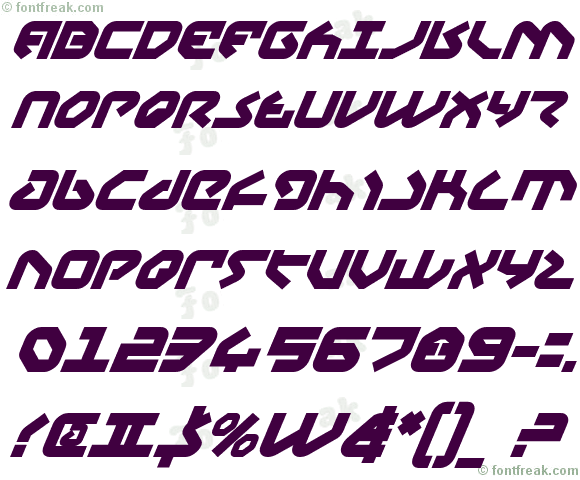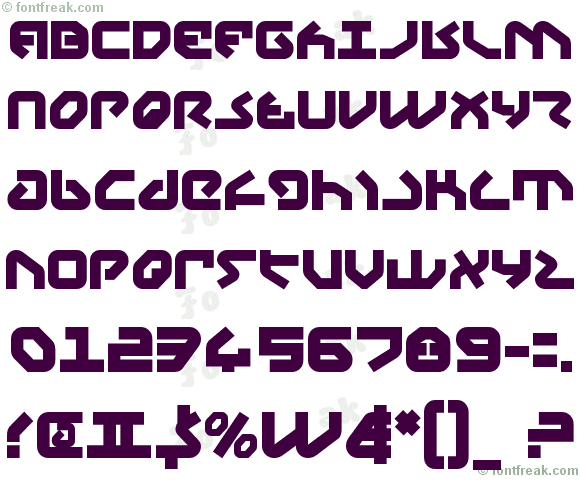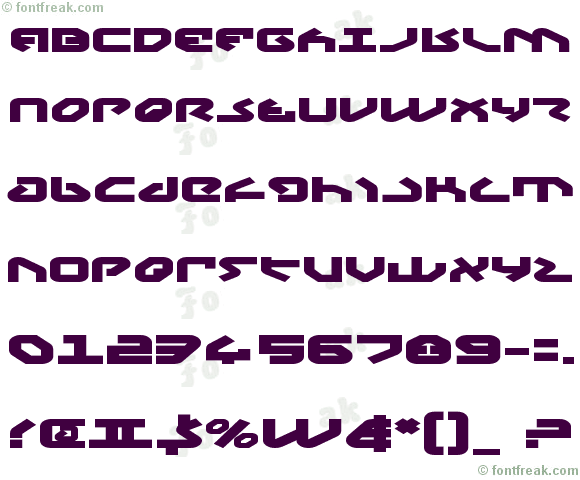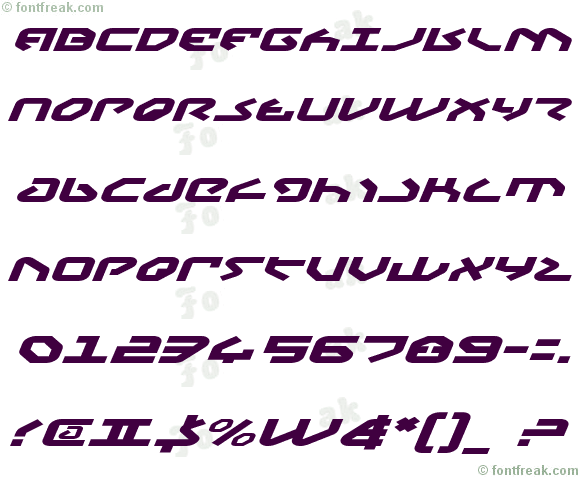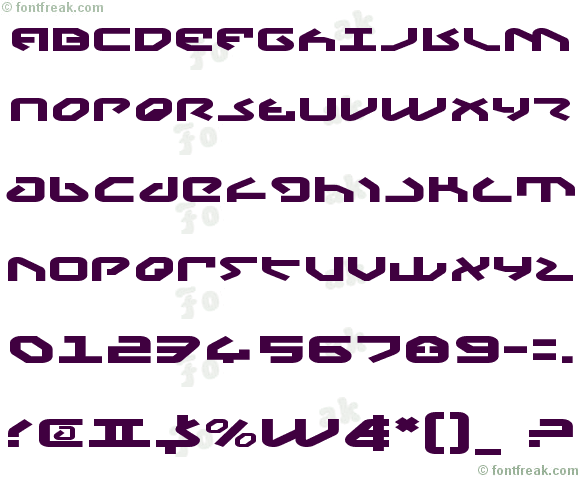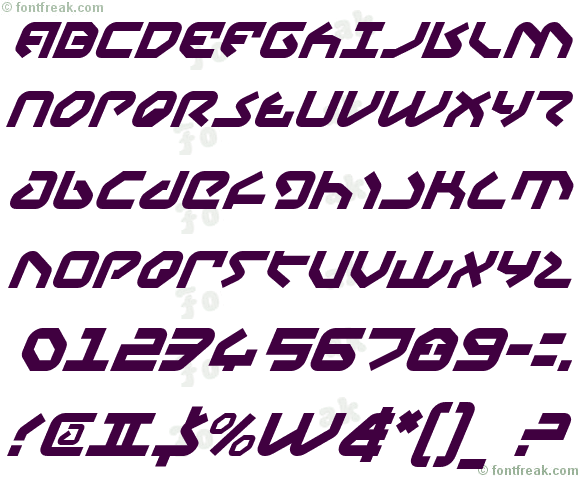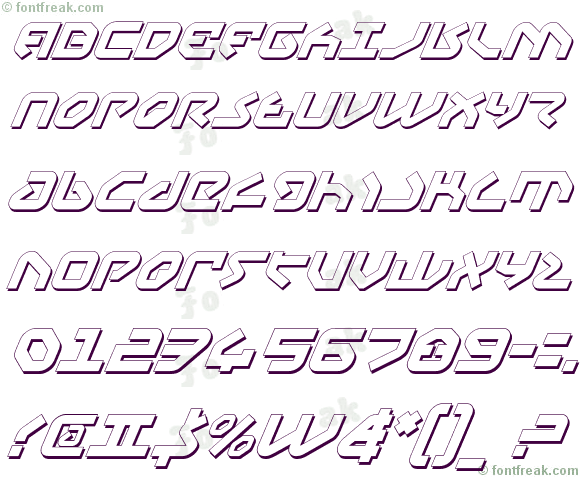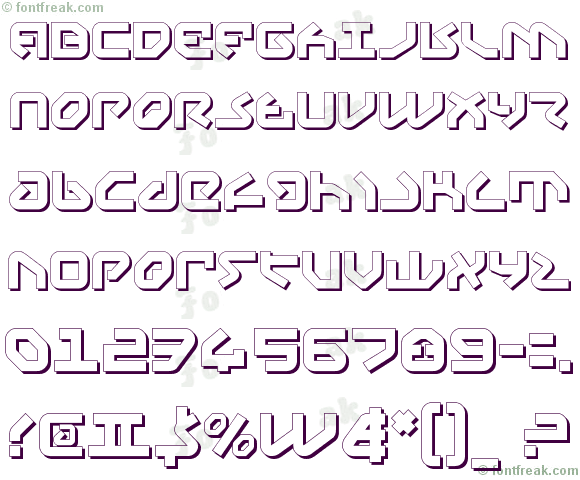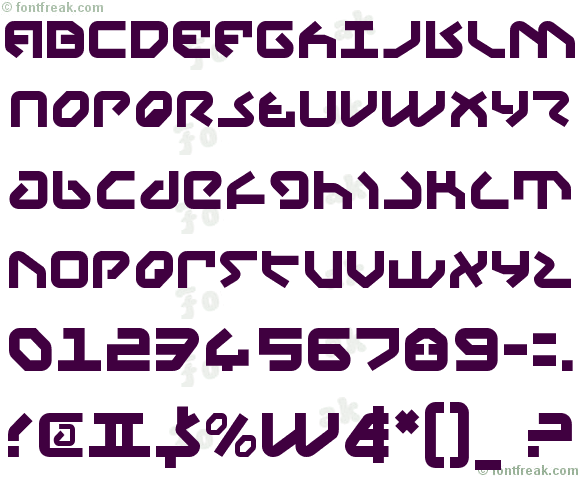
Yahren Expanded
About Yahren Expanded
Yahren Expanded is a striking display font designed by Daniel Zadorozny, released in 2003 as part of the Iconian Fonts collection. This typeface falls under the category of decorative fonts, characterized by its bold and expansive strokes that command attention. The visual characteristics of Yahren Expanded include a heavy stroke weight, minimal contrast, and a robust, geometric structure. Its expanded letterforms create an open and airy feel, making it ideal for designs that require a strong visual impact. The font features italicized forms, giving it a dynamic quality that enhances its overall appeal.
Yahren Expanded is well-suited for a variety of creative applications. It works remarkably well in movie posters, where its boldness can effectively convey excitement and energy. Additionally, it makes a great choice for attention-grabbing headlines in magazines or advertisements, ensuring that your message stands out. This font can also be effectively used for branding and logo design, particularly for businesses looking to make a memorable impression. Graphic designers and content creators will find Yahren Expanded especially useful for their projects, as its unique style adds a contemporary flair.